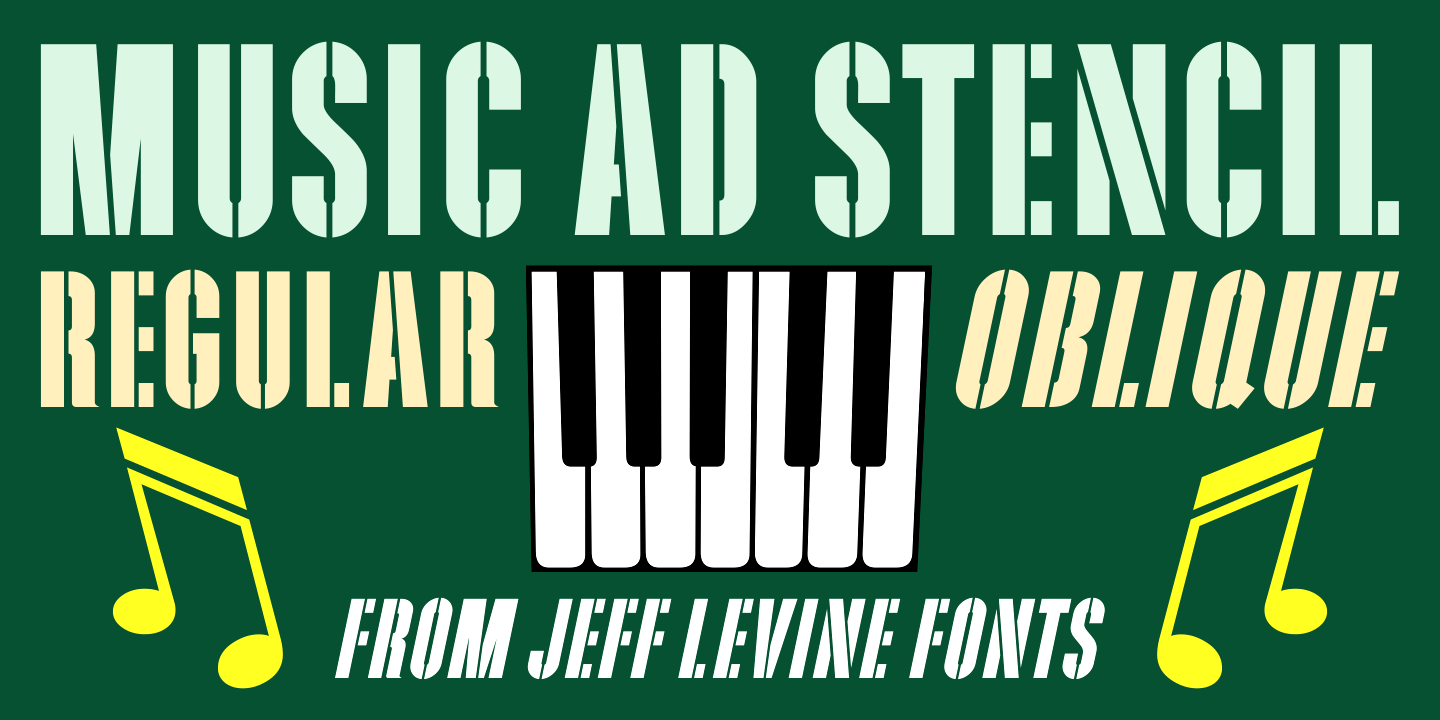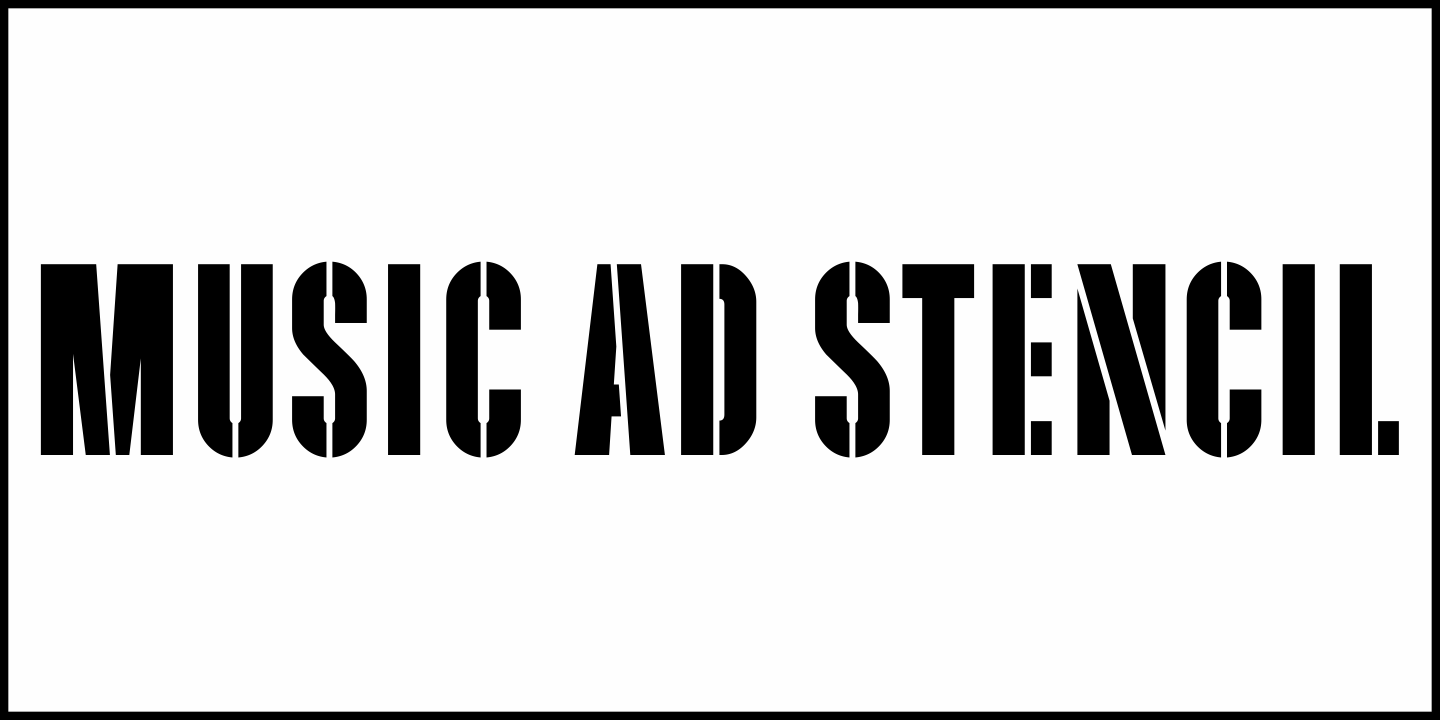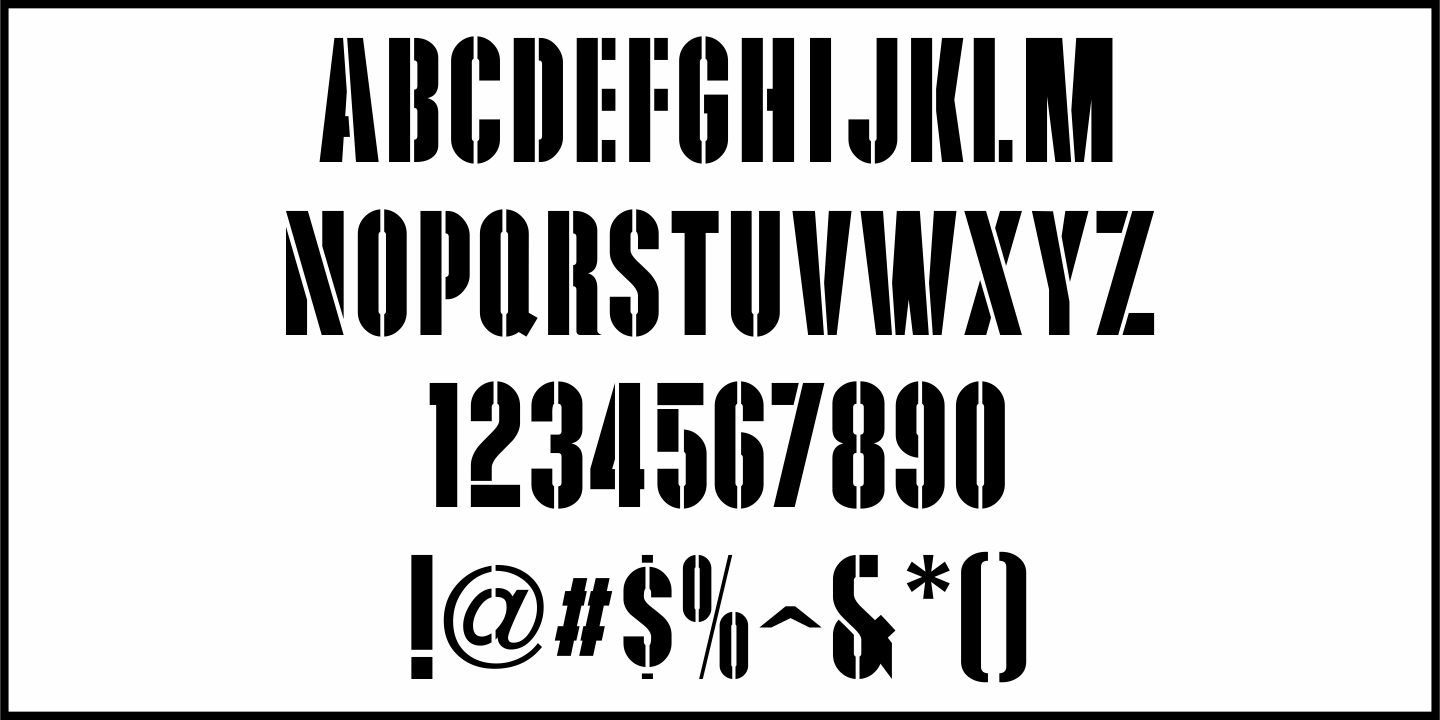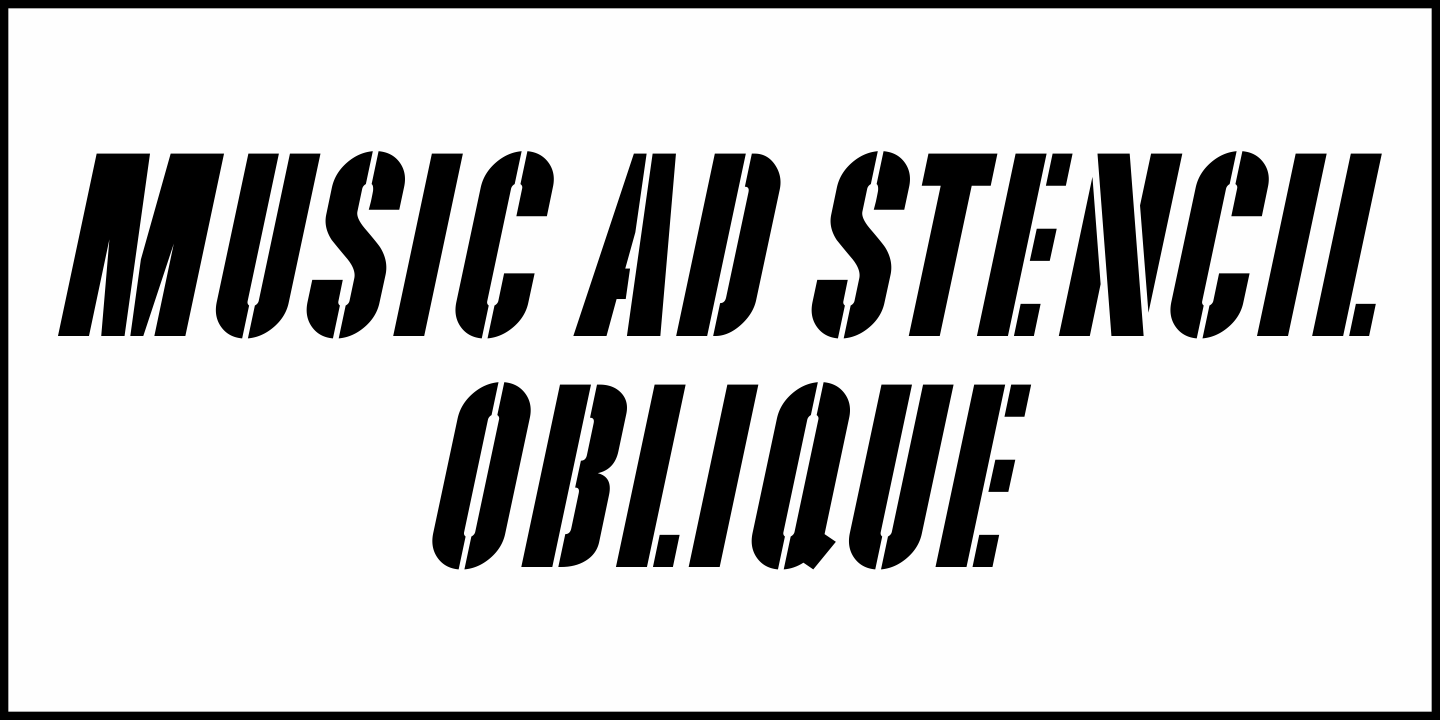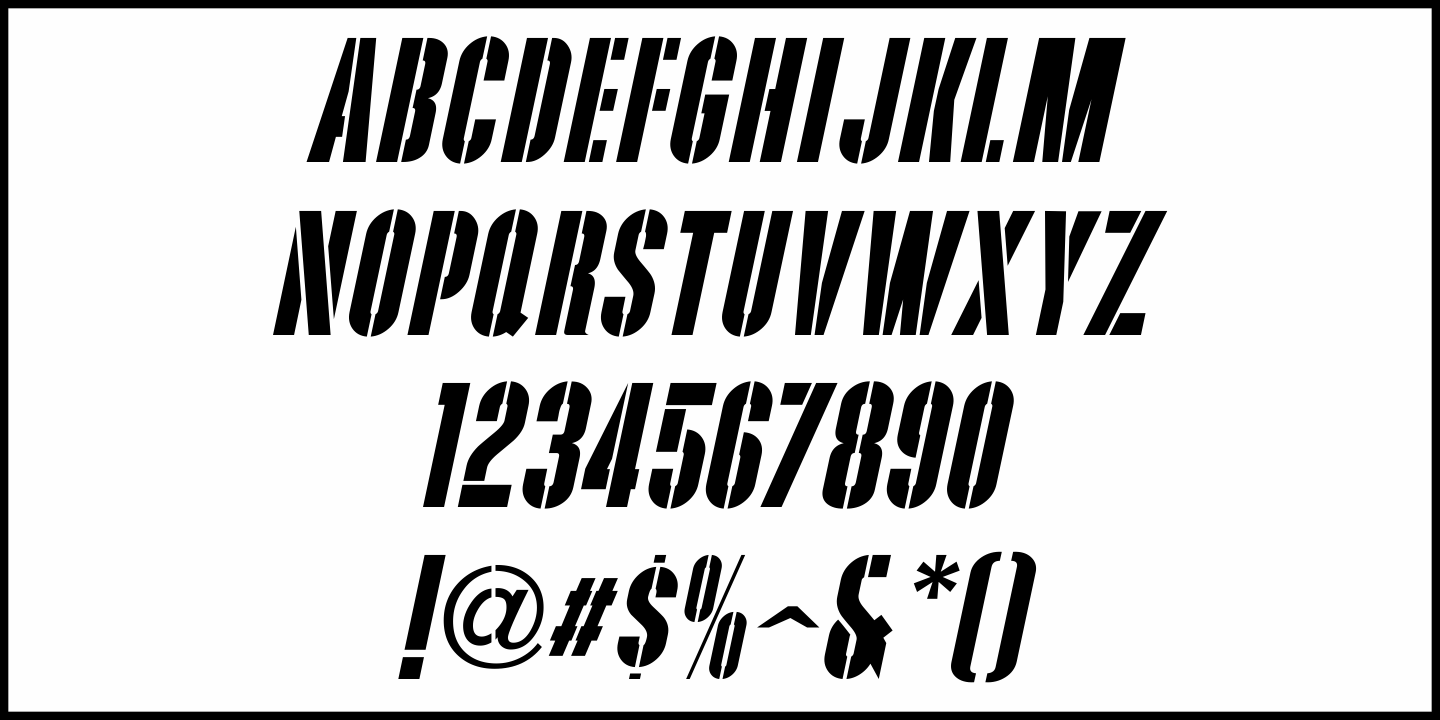
Music Ad Stencil
An ad appearing in the January 5, 1952 edition of Billboard Magazine promoted the then-new releases from Capitol Records.
The headline copy was set in a bold, condensed sans serif stencil typeface. This inspired Music Ad Stencil JNL, which is available in both regular and oblique versions.
Music Ad Stencil JNL Regular by Jeff Levine Fonts